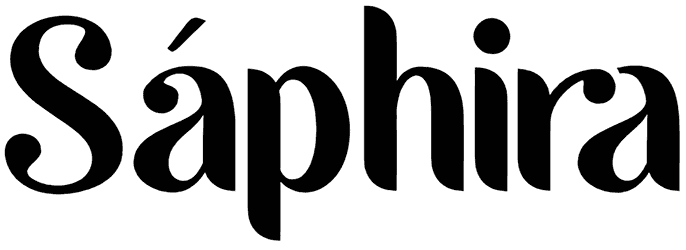
Saphira Font
With a classic and versatile font such as Saphira, you are capable of enriching numerous texts on various subjects. This fashion font has a stylish and popular face that is suitable for modern or retro, formal or informal projects. Test Saphira for magazines, flyers, business cards, or similar things with your creative ideas and cause an original vibe.